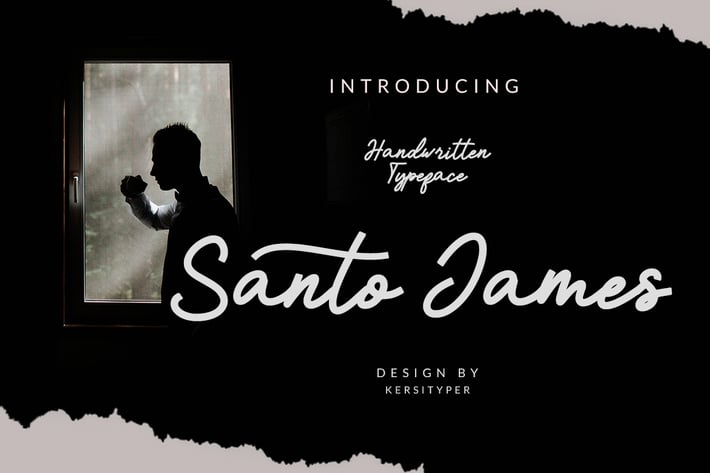
Santo James Font
Introducing Santo James' handwritten font. This script font comes with a retro, modern, and vintage touch in it. Inspired by the dynamic culture, sign, and badges design. This font looks very natural, perfect for all your large projects that require a handwritten touch.
Santo James Font multilingual support:
Afrikaans, Albanian, Catalan, Danish, Dutch, English, Estonian, French, Finnish, German, Icelandic, Indonesian, Italian, Malay, Norwegian, Portuguese, Spanish, Swedish, Zulu, and many more.
Standard & Multilingual glyphs